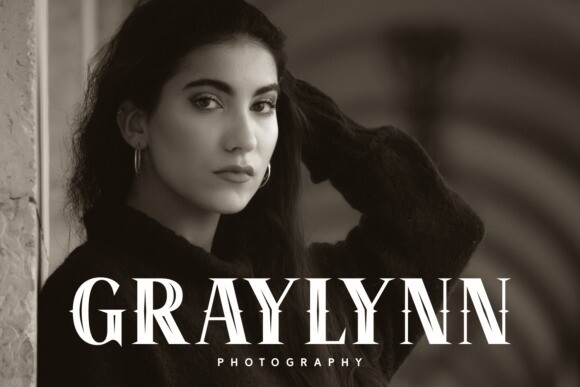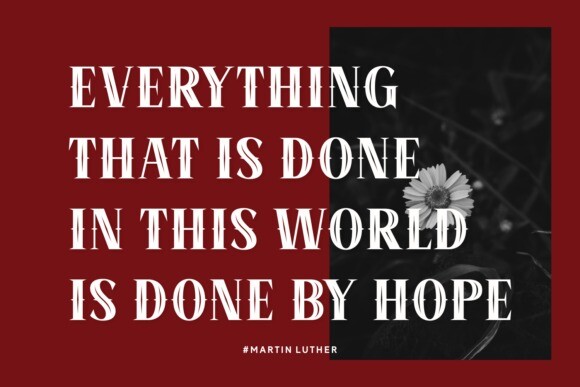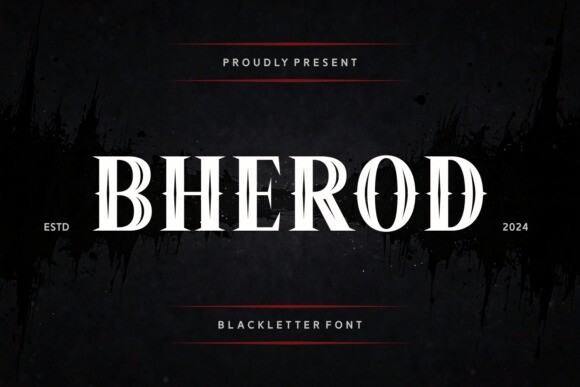
Bherod Font
Bherod reflects its adventurous spirit, evoking imagery of ancient hunts, medieval warriors, and untold tales. It’s perfect for designs that want to capture a sense of history, legend, or epic journeys. With its strong visual presence, Bherod is ideal for impactful designs like posters, logos, book covers, and branding that seek a bold, vintage, or gothic style.